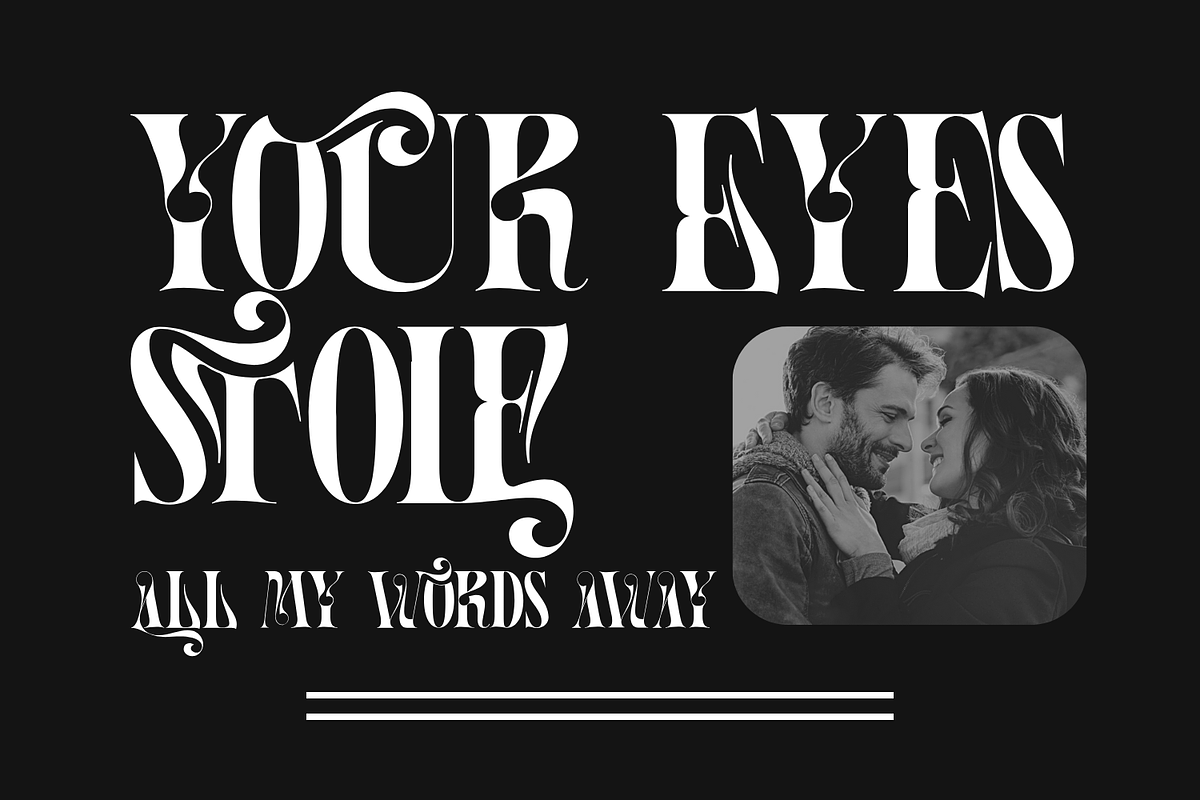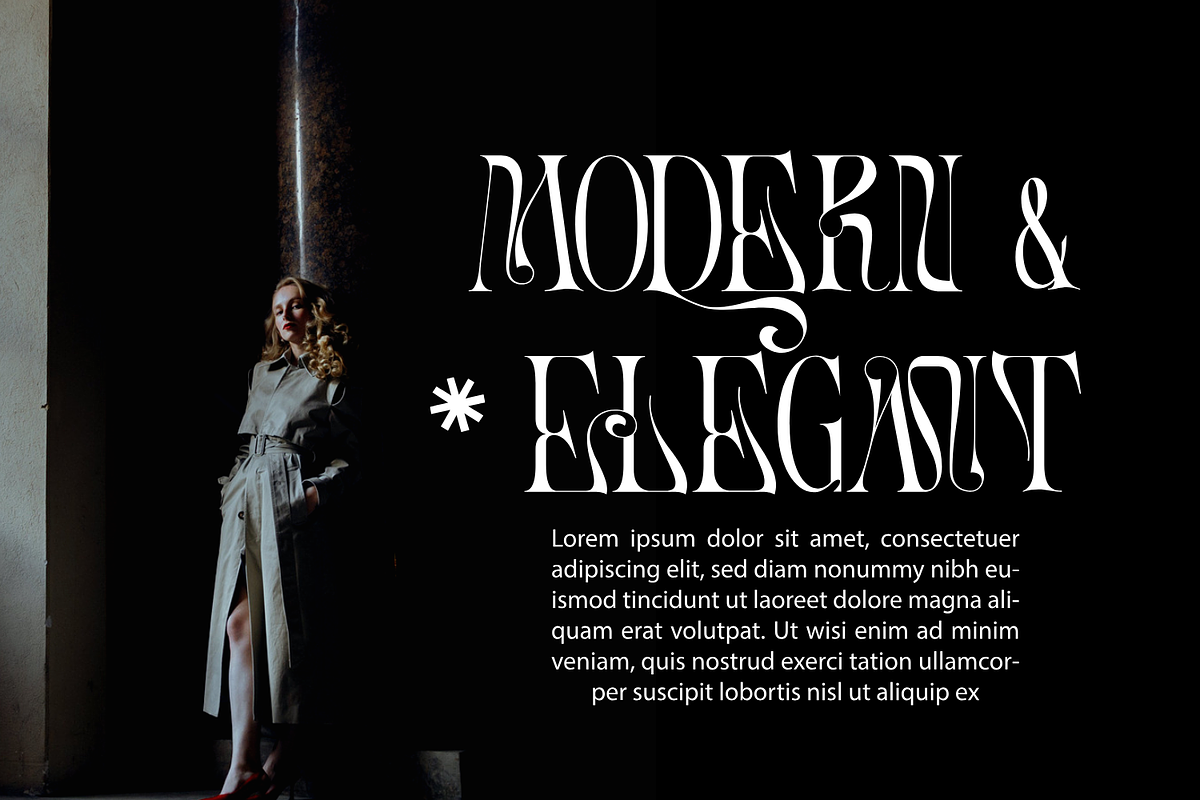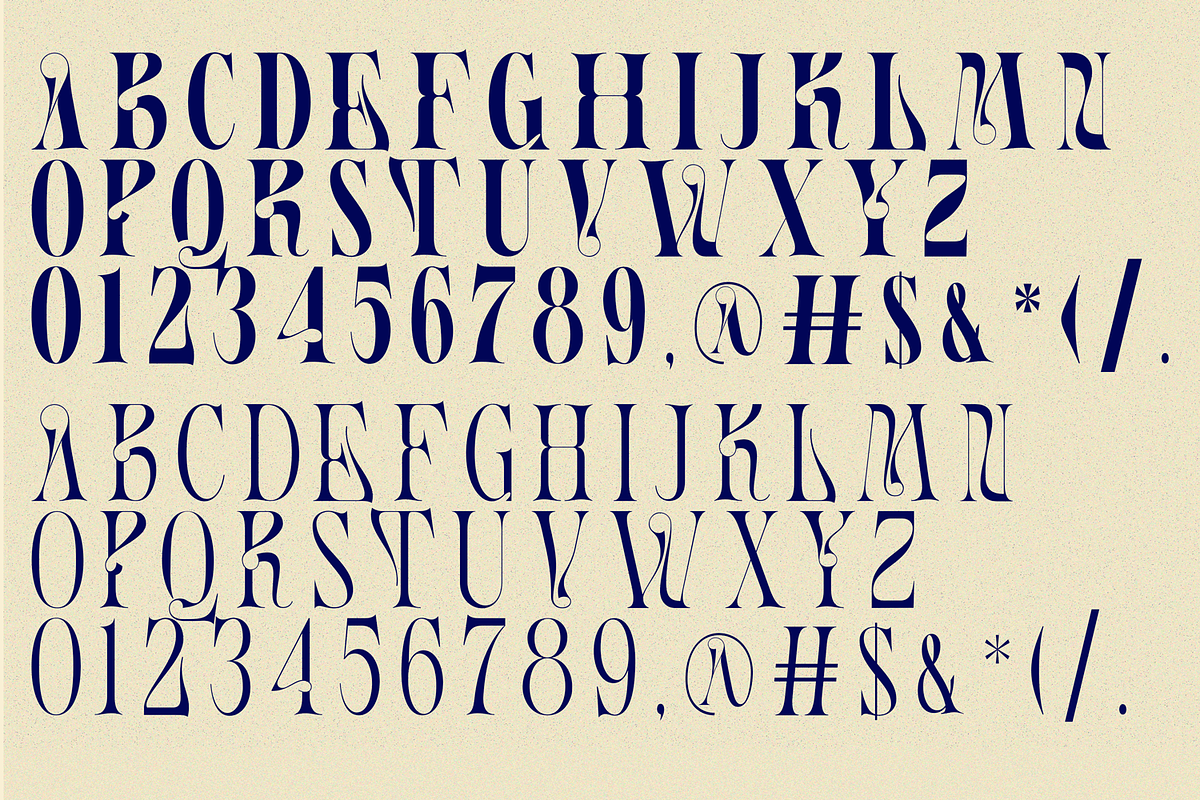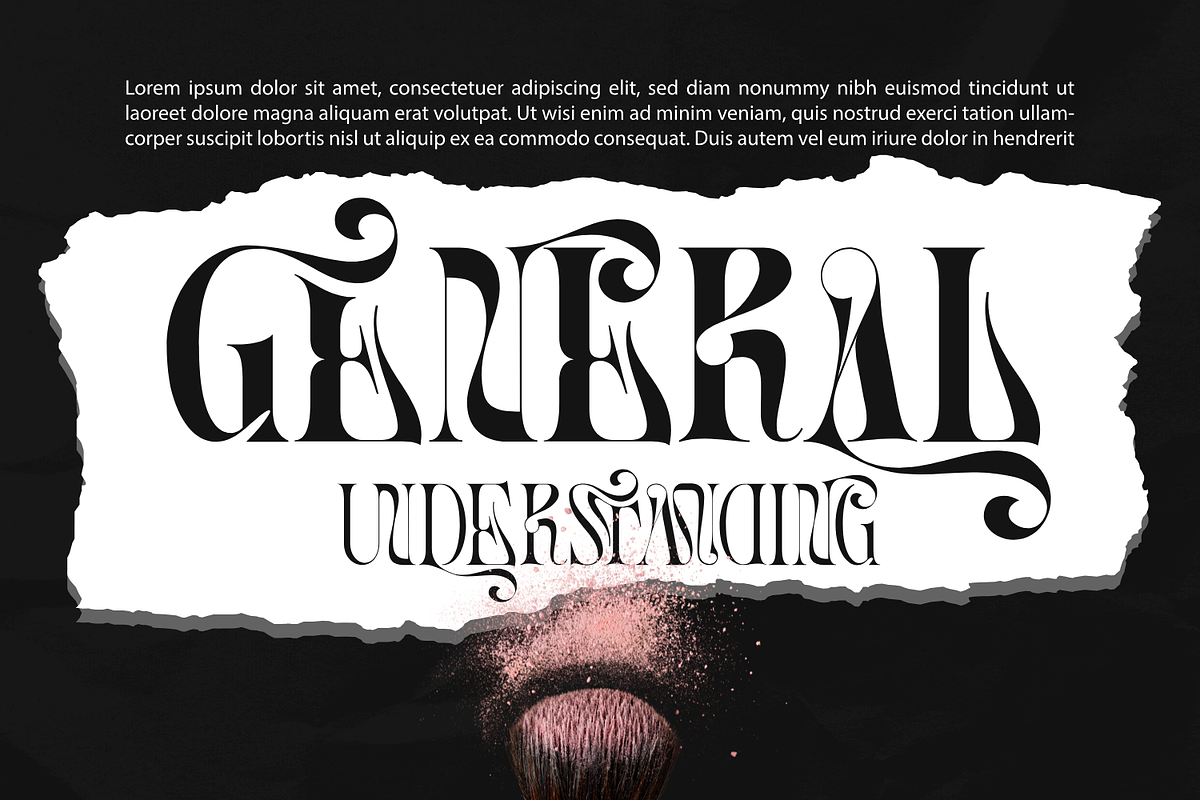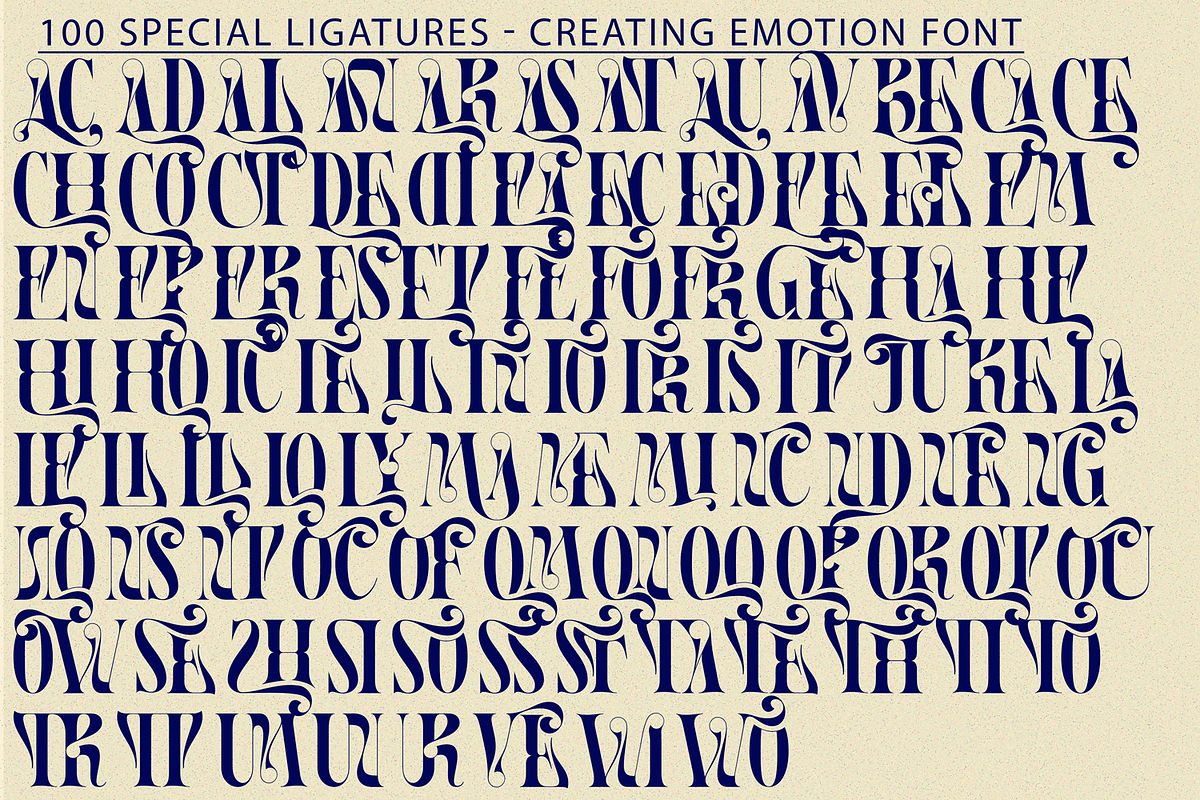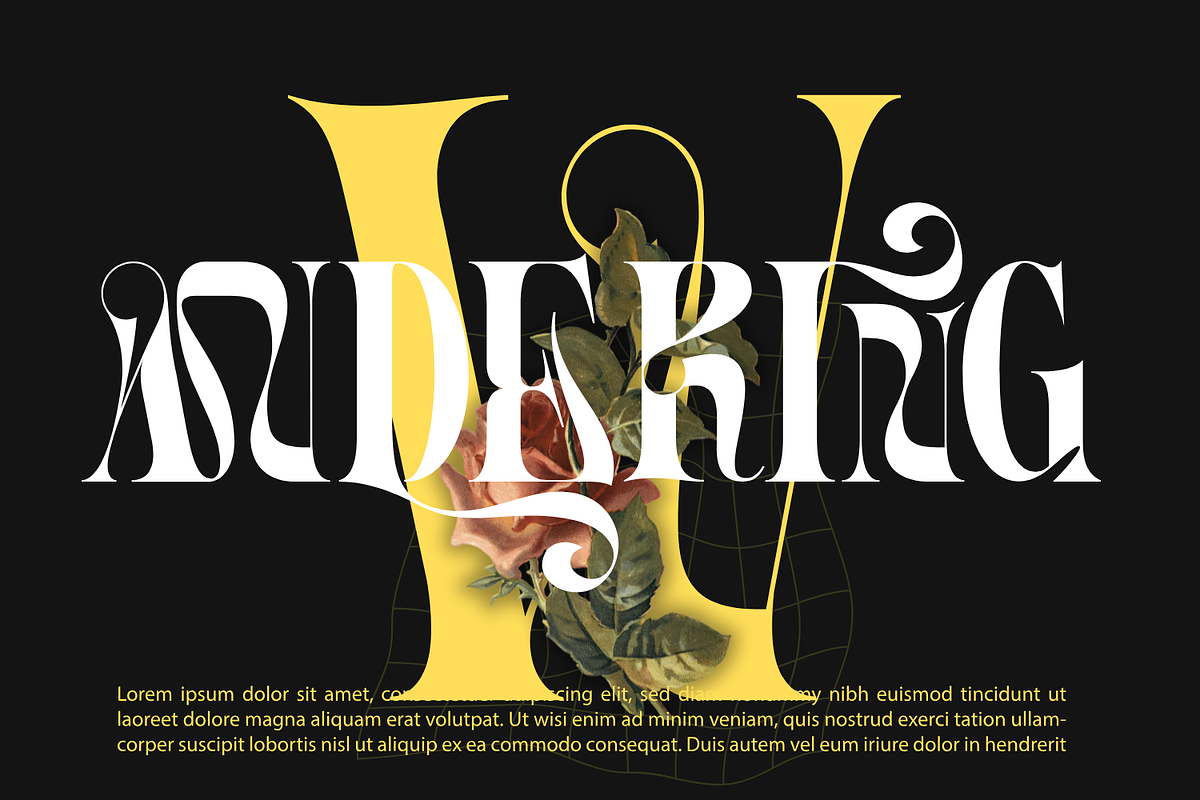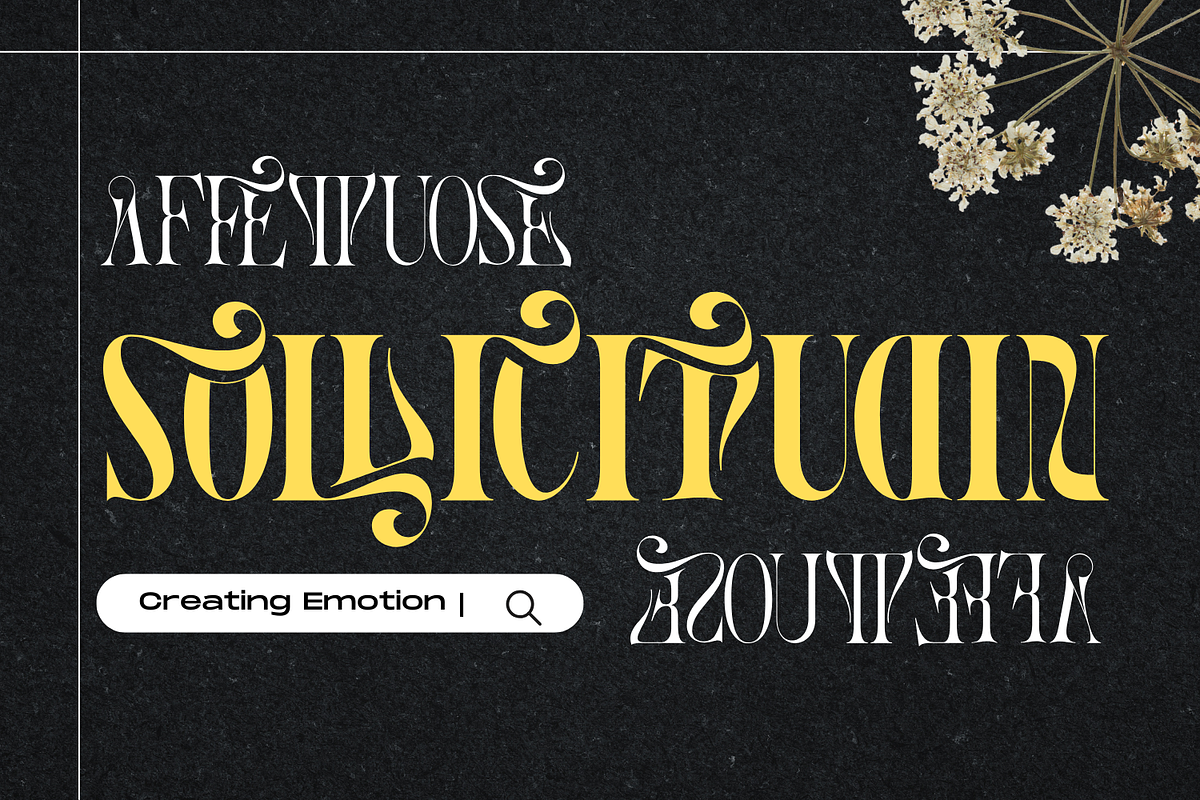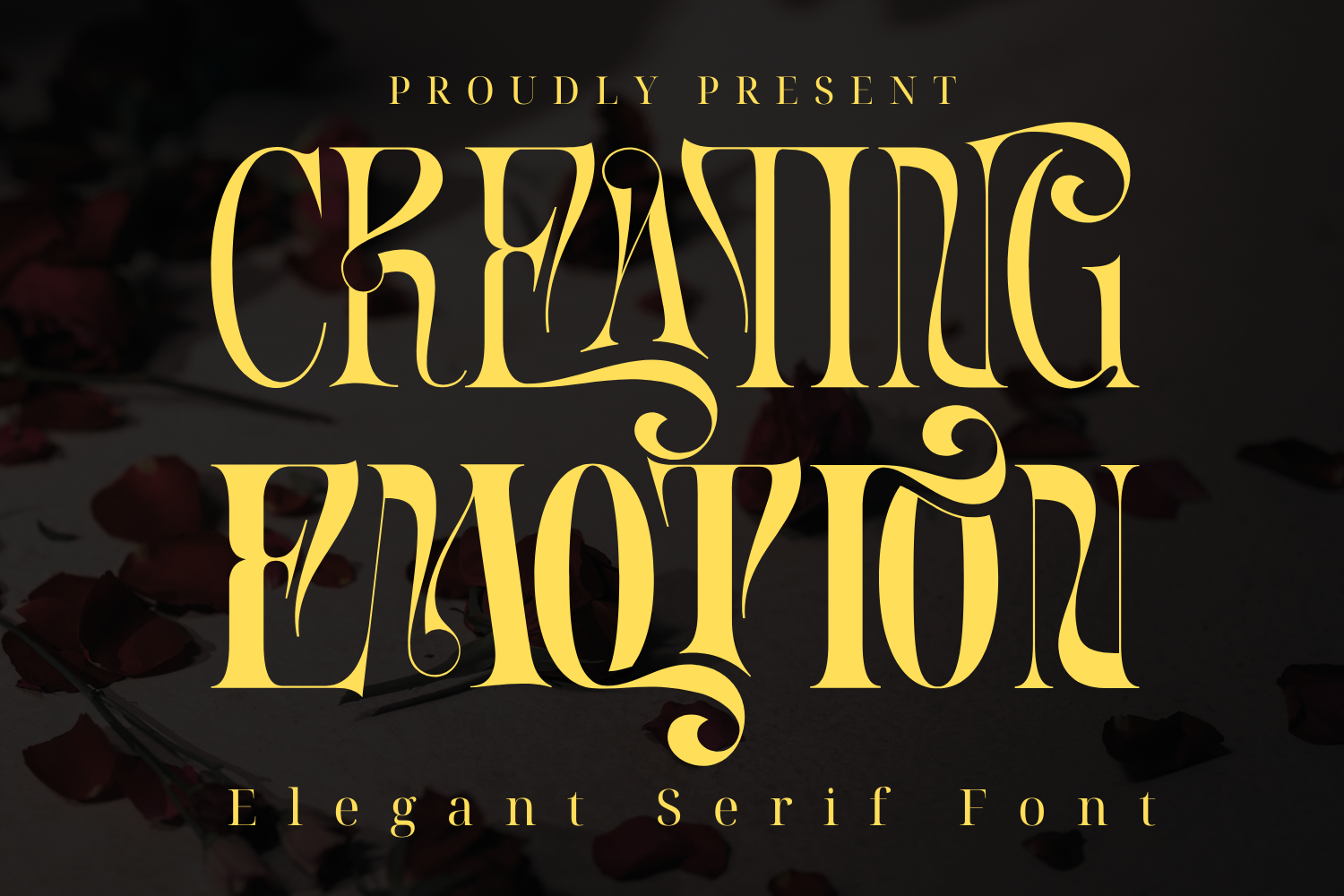
Creating Emotion Font
Creating Emotion Font, a dramatic serif display font that exudes elegance and mystique. With a bold regular version, and ligatures, this typeface is designed to elevate any project. Using all capitals will give you a highly stylized text, while combining capitals with lowercase will give you a highly legible text.
Creating Emotion was built with OpenType features and includes 100 ligatures, alternate, numbers, punctuation, and it also supports other languages.
AC AD AL AN AR AS AT AU AV BE CA CE CH CO CT DE DI EA EC ED EE EL EM EN EP ER ES ET FE FO FR GE HA HE HI HO IE IC IL IN IO IR IS IT JU KE LA LE LI LL LO LY MA ME MI NC ND NE NG NO NT NS OC OF OM ON OO OP OR OT OU OW PA PR RA RD RE RI RO RS RT SE SH SI SO SS ST TA TE TH TI TO TR TT UM UN UR VE WI WO
- Uppercase letters
- Special Ligatures